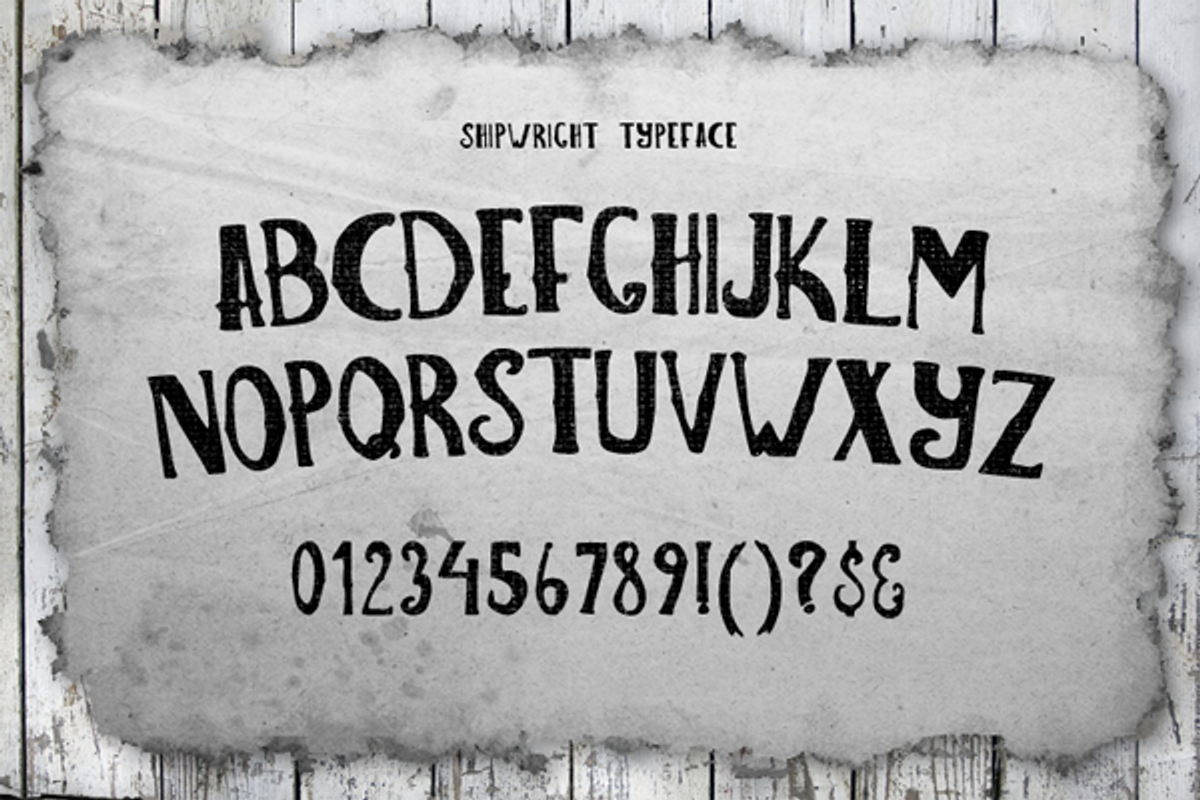
Shipwright Typeface
Shipwright Typeface by UnVeil Co. is a font selected for branding, posters, packaging, typography.
Why Shipwright Typeface is worth a look
Shipwright Typeface by UnVeil Co. fits naturally into Branding, posters, packaging, typography.